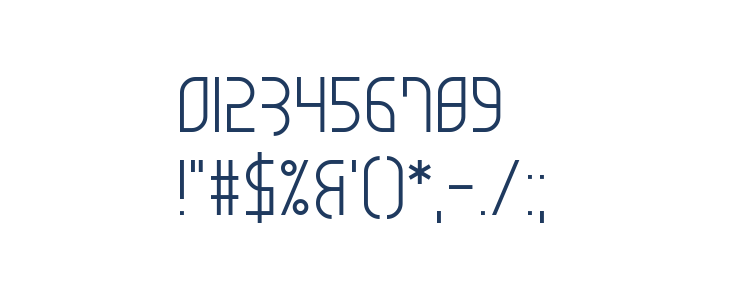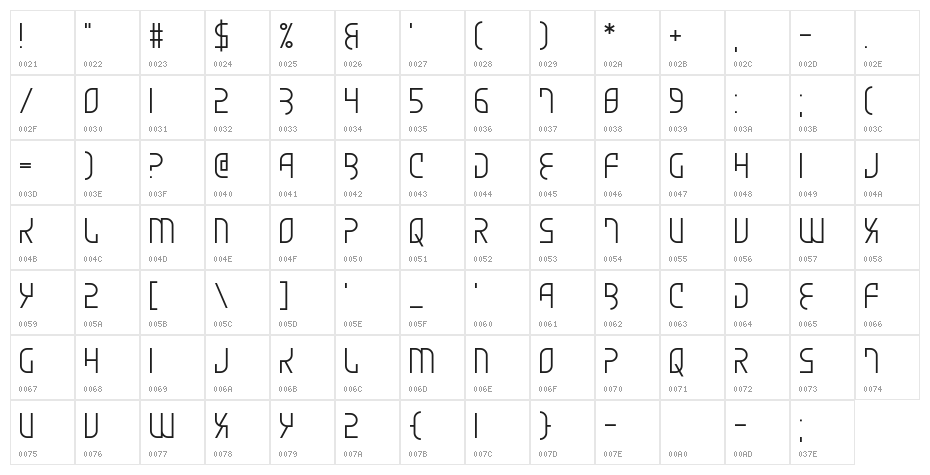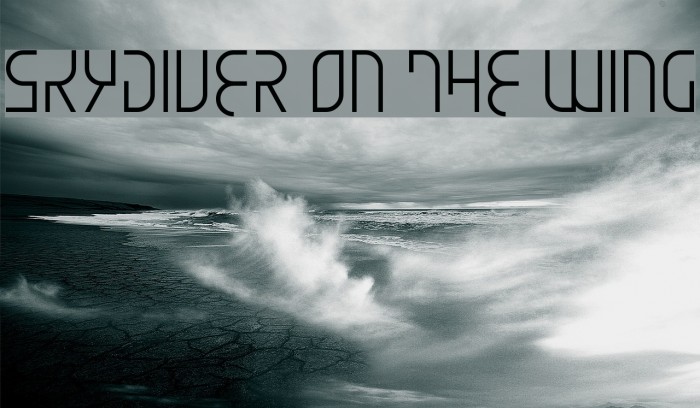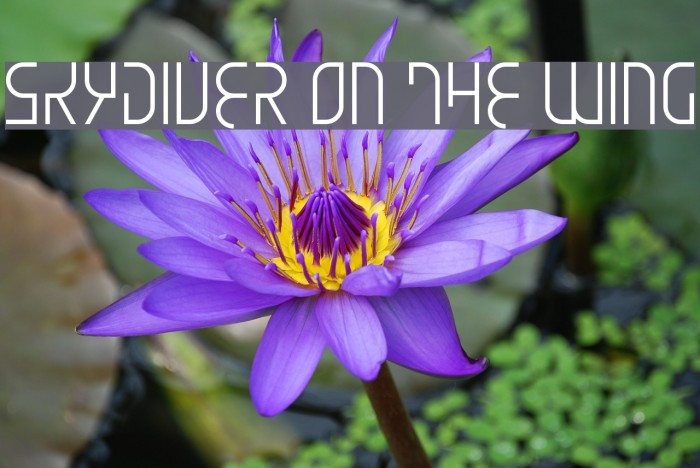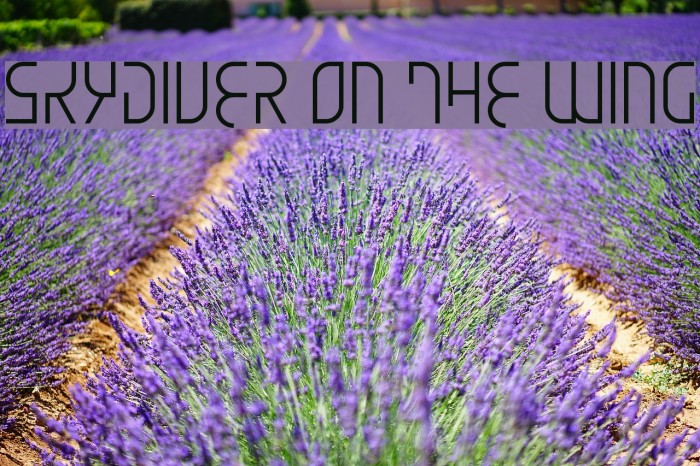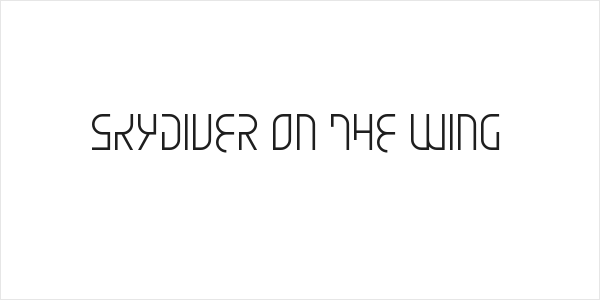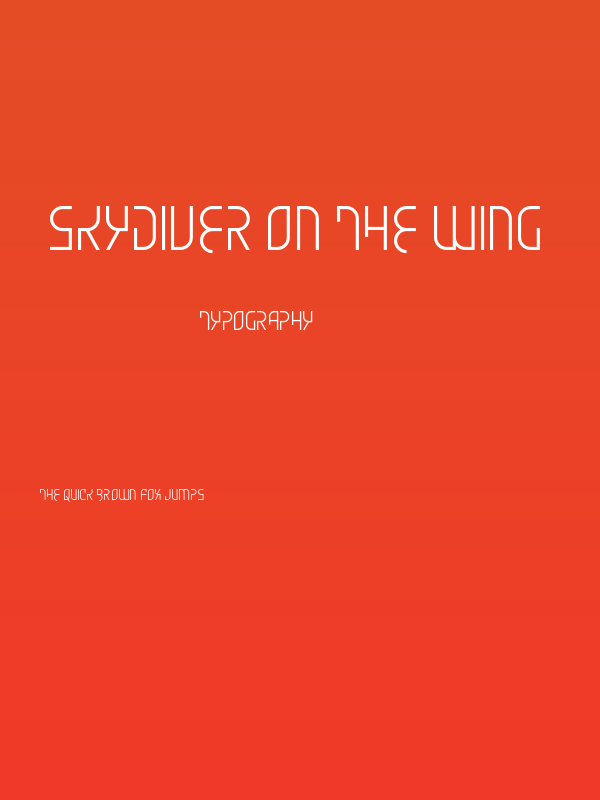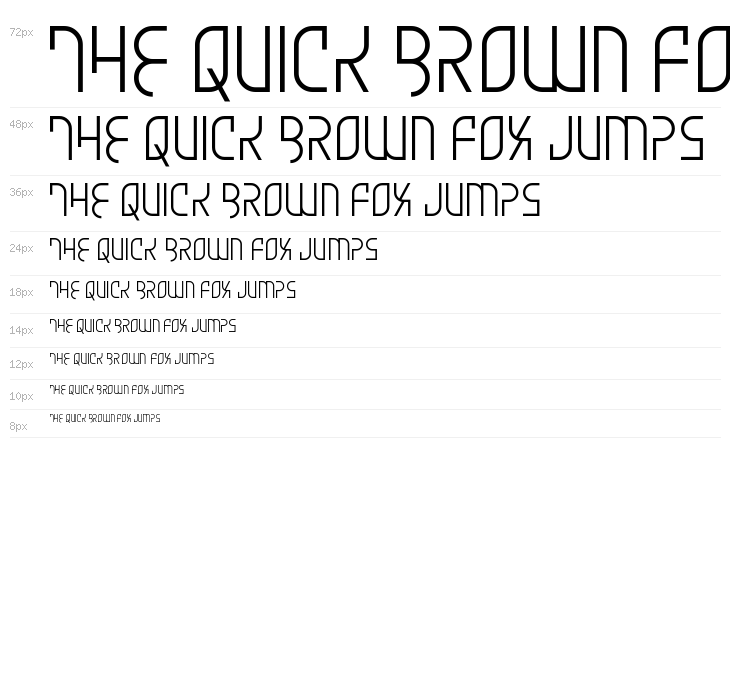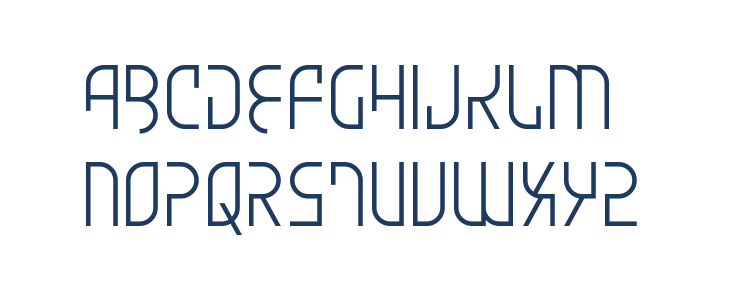
Skydiver On The Wing Font
Skydiver On The Wing Description
This font features a modern, geometric design with clean lines and a futuristic aesthetic. The characters are constructed with a consistent stroke width, giving it a uniform appearance. The uppercase and lowercase letters share similar structural elements, enhancing the cohesive look of the typeface. The numerals and special characters are designed to match the overall style, maintaining the geometric and minimalistic theme. This font is highly legible and suitable for various design applications that require a contemporary and sleek look.
| Use Case | Headlines, Logos, Digital interfaces |
| Proposed Projects | Ideal for tech branding, modern posters, digital interfaces, and futuristic-themed projects. |